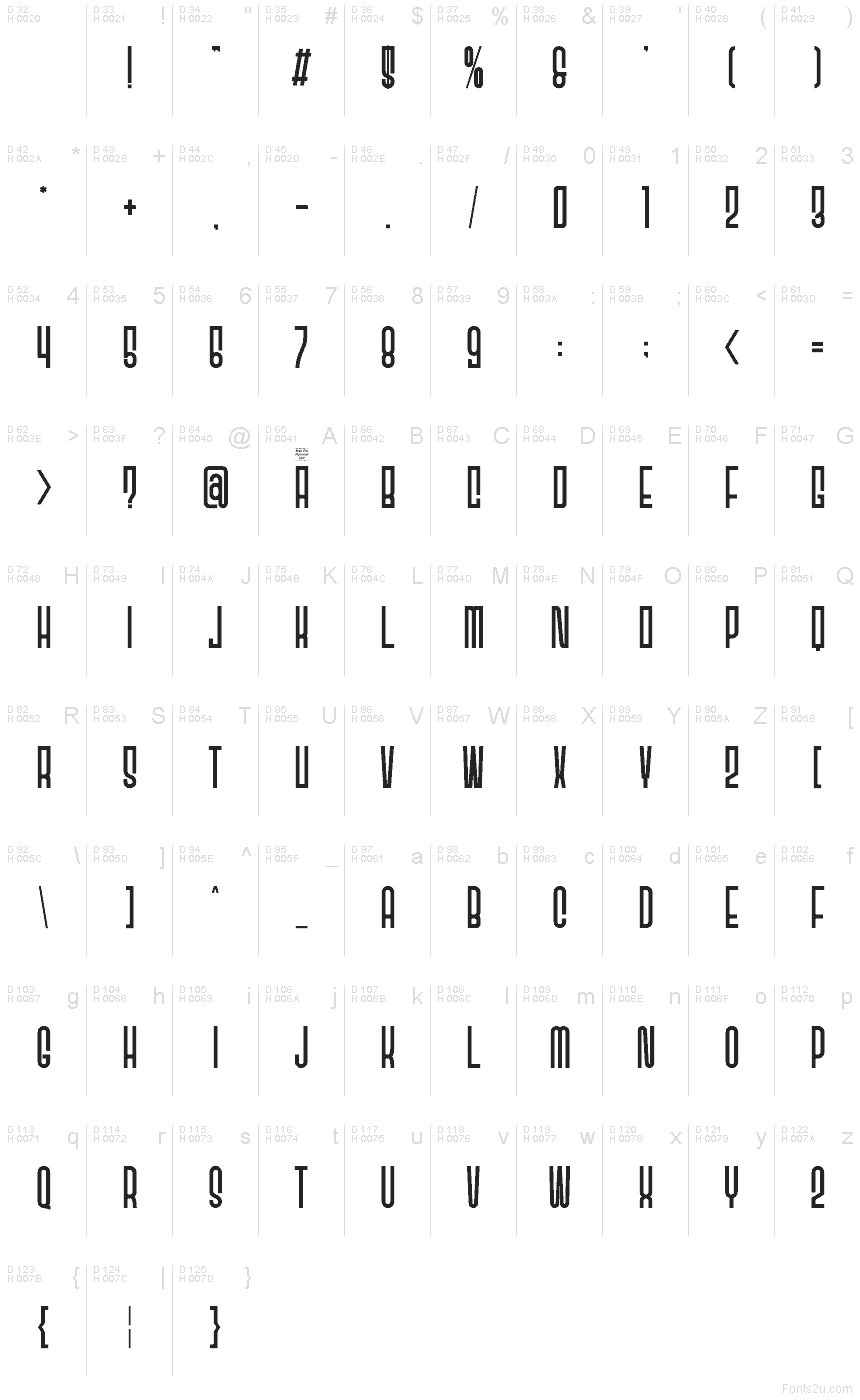
Astelop
Astelop font by Ermedia Studio is a free condensed retro sans font. It stands out with extra-tall, tubular strokes and tight vertical rhythm that feel straight off a mid-century marquee. The letters are monoline and smooth, with squared curves and clipped terminals that create a clean, assertive cadence—like neon tubing rendered in ink. Spacing is snug but controlled, giving headlines a stacked, poster-like presence without turning claustrophobic.
Using Astelop, titles snap into place and hold attention, making it a natural fit for posters, event branding, album covers, beverage packaging, signage, and editorial splash pages. This free font rewards big sizes where its sculpted joins and narrow forms can breathe. Pair it with a simple, open grotesk for body copy, or contrast with a light, wide sans to balance its tall, streamlined silhouette.